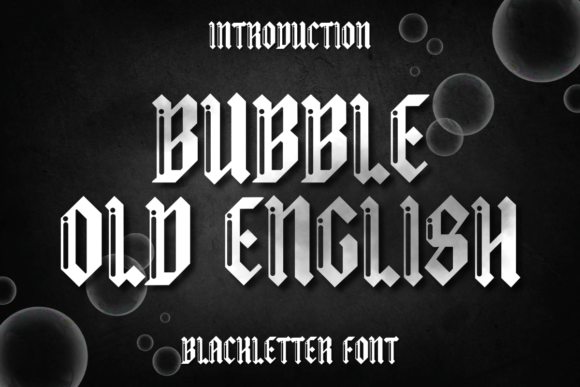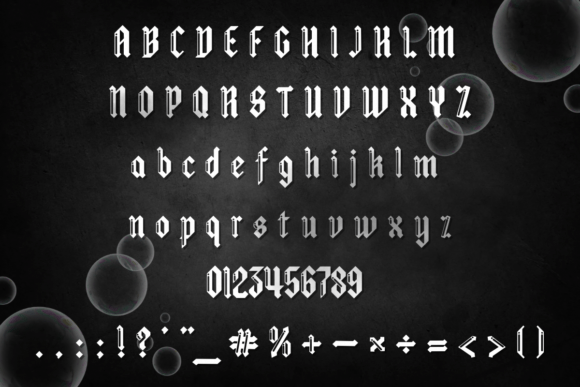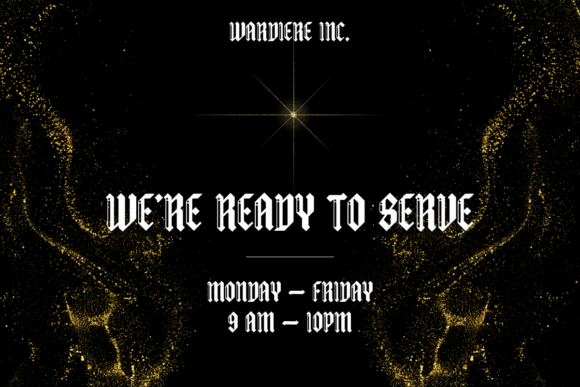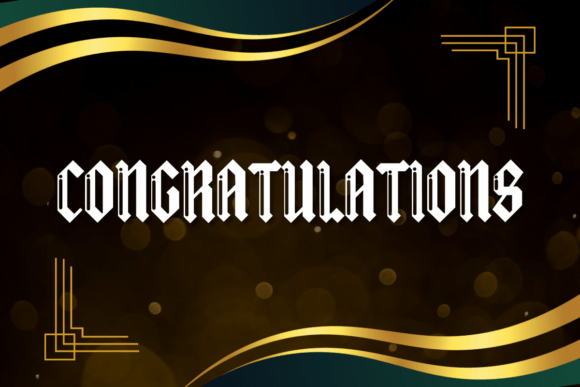
Bubble Old English Font
About the Bubble Old English Font
Get ready to be inspired by Bubble Old English Font, a fresh and dynamic typeface for modern creators. Bubble Old English is a bold twist on the traditional blackletter style, blending gothic elegance with a playful modern flair. Its sharp, angular strokes are softened with subtle bubble-like curves, creating a distinctive and edgy aesthetic. Perfect for tattoo designs, vintage posters, heavy metal branding, or any project that craves a unique medieval-meets-modern identity.
This font excels in headline applications, short impactful phrases, and logo designs where its bold personality can shine. It’s also well-suited for packaging that requires a vintage or edgy aesthetic. However, its highly stylized nature makes it unsuitable for body text or UI elements, where readability is paramount. Avoid using it in long paragraphs or situations demanding high legibility.
Bubble Old English’s core personality is bold and rebellious, yet retains a touch of elegant sophistication. Brands targeting a younger demographic with a taste for the unconventional, such as those in the music, fashion, or gaming industries, would find it particularly effective.
For effective pairings, consider a clean sans-serif like Montserrat for contrast, or a more traditional serif such as Garamond for a sophisticated balance. A geometric sans-serif, such as Futura, would also create a compelling modern juxtaposition.
Bubble Old English Font Example